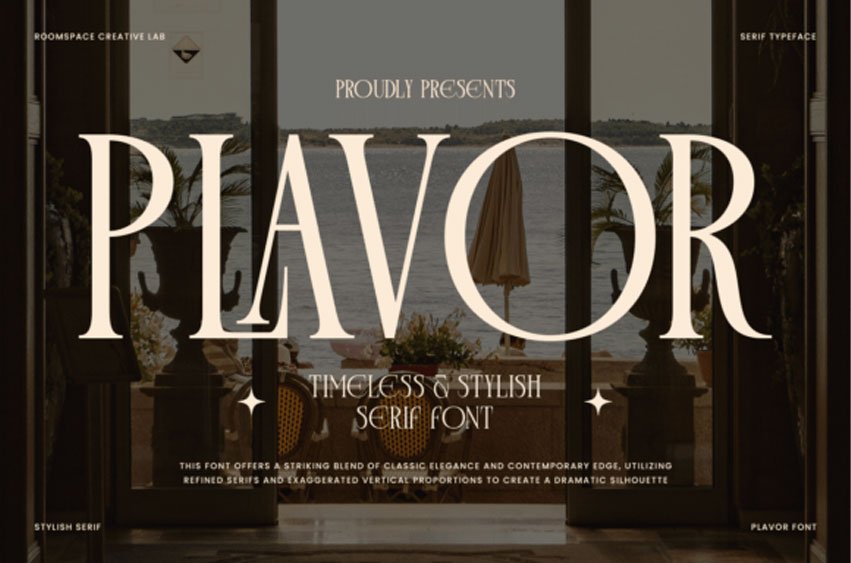
Plavor Font
Plavor Font Timeless & Stylish Serif Font. Plavor is a refined serif font that effortlessly blends timeless sophistication with bold, modern elegance.
Featuring high-contrast strokes, exaggerated vertical proportions, and elegant serif detailing, it creates a dramatic silhouette that commands attention. Ideal for branding, editorials, luxury packaging, invitations, and logos, Plavor elevates any design with a sense of prestige and allure. Its contemporary edge, paired with classic roots, makes it perfect for high-end fashion, magazines, and premium product labels.
Perfect for branding, magazine covers, packaging, wedding stationery, and editorial designs, Plavor enhances your project with a luxurious, timeless aesthetic. Whether used for headlines or logotypes, this serif font adds a striking sense of sophistication. Add Plavor to your font collection today and elevate your designs with classic beauty and modern flair.